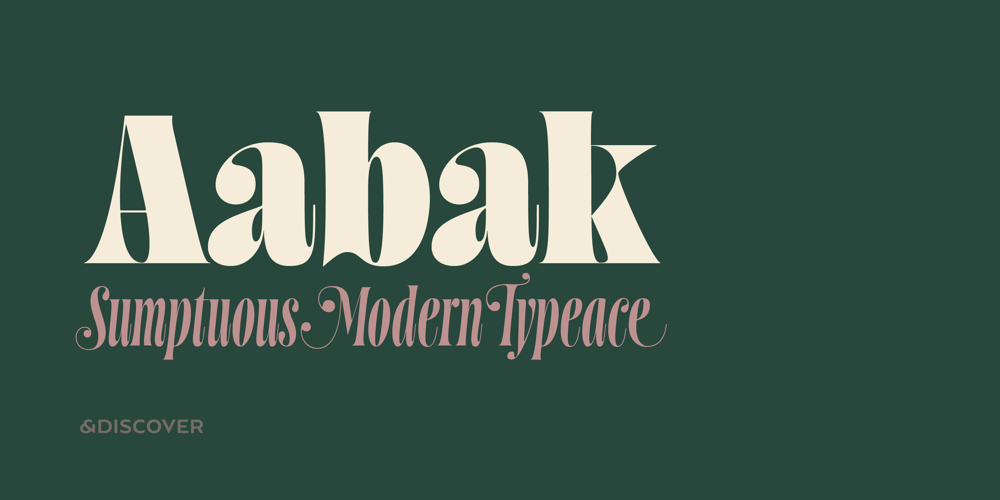
Aabak Font Family was designed by Natanael Gama and published by Polimateria. Aabak contains 18 styles and family package options. Aabak is a sumptuous modern typeface family. The high contrast, super elegant, didone like shapes were infused with a little fluidity from 60’s psychedelic lettering, the results is a contemporary face that screams freshness. It is ideal for branding, advertising, headlines, posters, movie titles, and much more! This design deliberately sabotages a lot of white space to have that compressed punchy look. The tear drop terminals and the melting serifs create a surprisingly superb combo.Sharp joints were smoothen to convey a warm and subtle feeling. Aabak comprises a total of 18 styles, 6 weights in 3 different cuts: Upright, Italic and Swash. The Swash styles have also a terminal forms feature that gives that extra lush feel.Have fun playing with it!